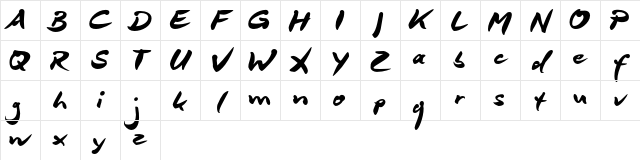
Complete DeBorstel Brush Reduced Regular glyph index. Displaying only characters natively supported by DeBorstel Brush Reduced Regular font.
DeBorstel Brush Reduced flows with the natural rhythm of handwritten lettering, making it ideal for designs that call for warmth and personal expression.
Font Pairing: Combine DeBorstel Brush Reduced with a simple geometric sans for maximum contrast - the tension between flowing curves and clean structure is a classic typographic pairing.
Pro Tip: Use DeBorstel Brush Reduced for short runs of text - names, titles, or taglines. Extended body copy in script faces tires the eye quickly.